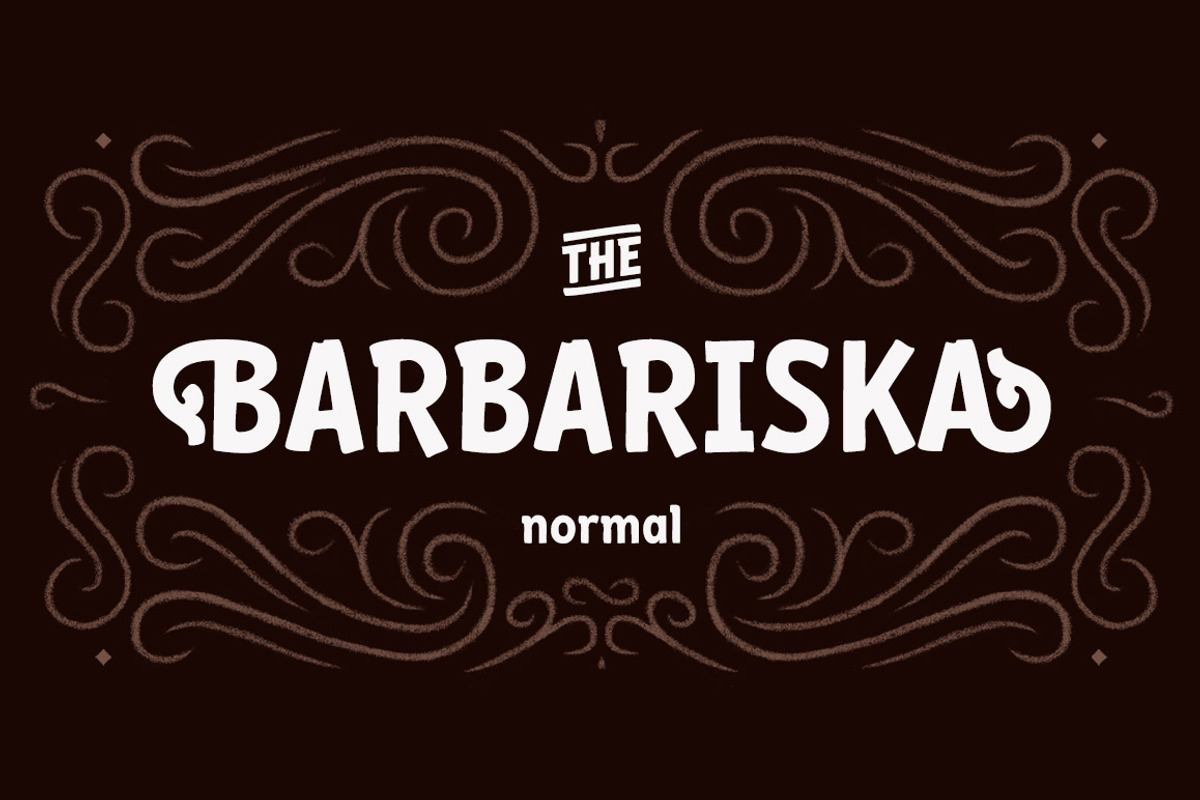
Make a bold visual impact with Barbariska Font Regular & Oblique Free Download — a powerful display typeface available in both standard and slanted styles. With its sharp edges, bold strokes, and strong character, Barbariska is perfect for posters, branding, editorial titles, album covers, and anything that needs a touch of attitude and modern edge.
The Regular style delivers a clean, commanding presence, while the Oblique version adds movement and style, great for dynamic layouts and contemporary designs. It includes uppercase and lowercase letters, numerals, punctuation, and stylistic elements—making it a solid option for testing high-impact creative concepts.